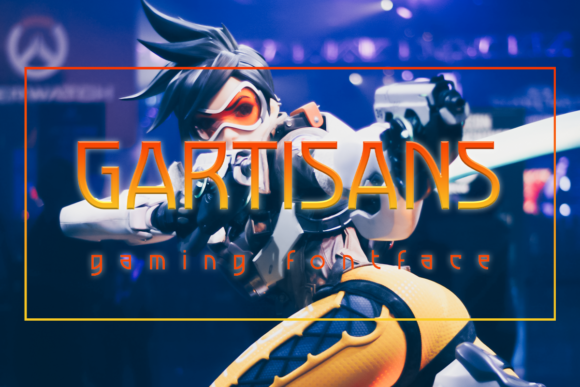
**Embrace a Modern Typeface: Gartisans, the Epitome of Style**
Prepare to be spellbound by the allure of Gartisans, a remarkable sans serif font crafted with a touch of modernity and elegance. This meticulous creation by Sign Studios exudes a casual grace that captivates the eye, making it effortlessly readable and an ideal choice for a multitude of design endeavors.
Step into a world where type becomes art with Gartisans. Its versatile nature empowers you to unleash your creativity across a spectrum of backgrounds, whether they be vibrant and bustling or serving as a serene backdrop for a captivating headline. Gartisans shines as a beacon of clarity and style, ensuring your message captivates and resonates with your audience.